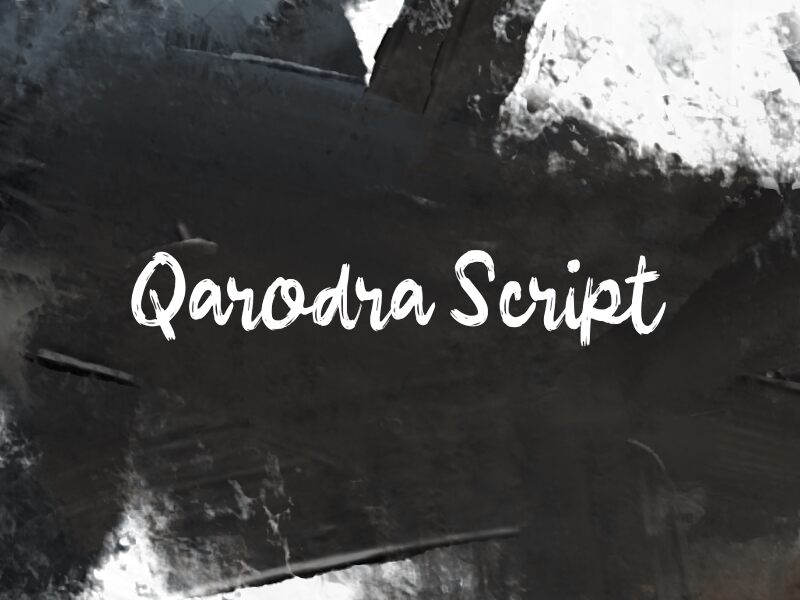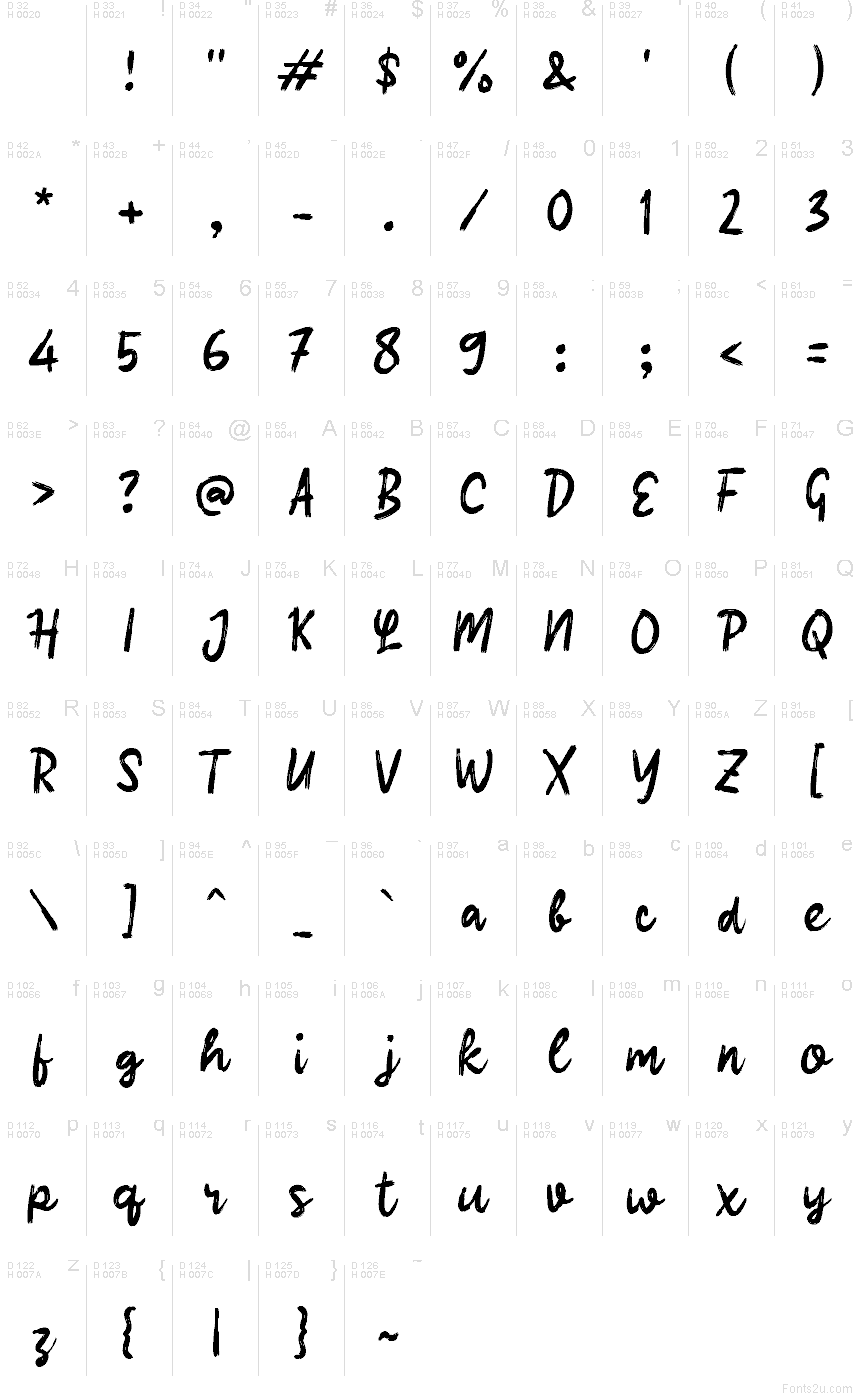
Qarodra Script
Qarodra Script font by wep is a free brush script typeface that feels like it was painted in one confident sweep. The strokes are bold and inky with rough, textured edges, giving every word a handmade, slightly gritty energy while still staying legible. Its easy slant and loose rhythm make it feel spontaneous, like quick lettering on a café chalkboard or a fresh mural sketch.
Using Qarodra Script, you can bring this raw, expressive character to branding, packaging, social media graphics, posters, T‑shirt designs, and bold quote layouts. This free font shines when you let it go big, where the brush texture and movement can really breathe. For a clean contrast, pair it with a simple sans serif in smaller sizes to support the noisy, characterful headlines.